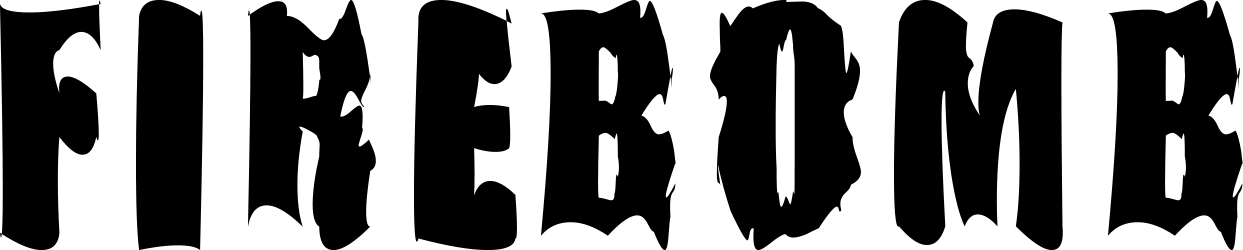
Firebomb Font
Designed byBombHaus
Firebomb is a fire font, as the name implies, and it consists of bold, on-fire characters that carry a sense of fear and excitement. It comes without the lowercase letters and supports a limited number of punctuation marks, yet nothing can hold a candle to it when it comes to horror movie posters, comic books, cartoons, or advertising signs and flyers, to name a few.